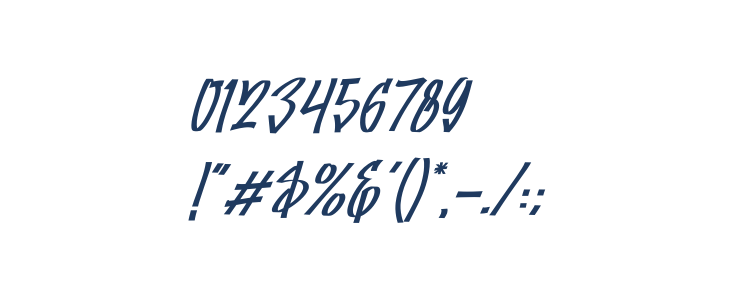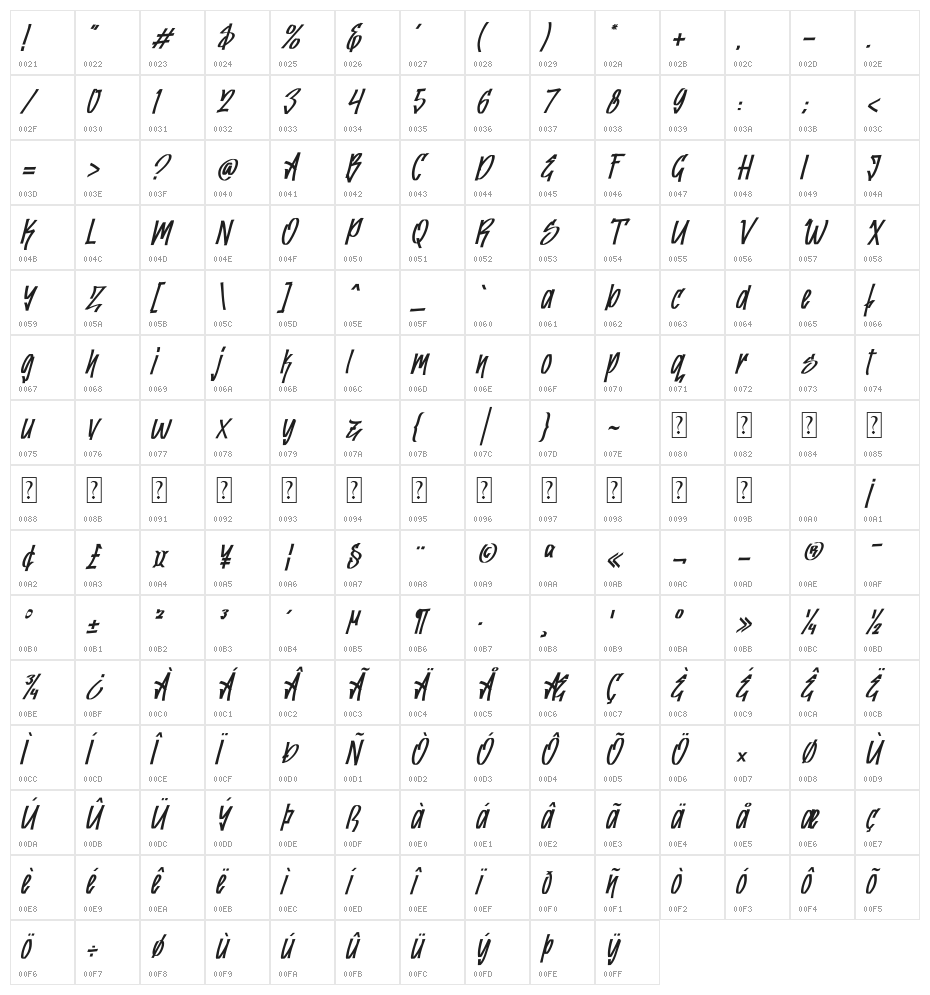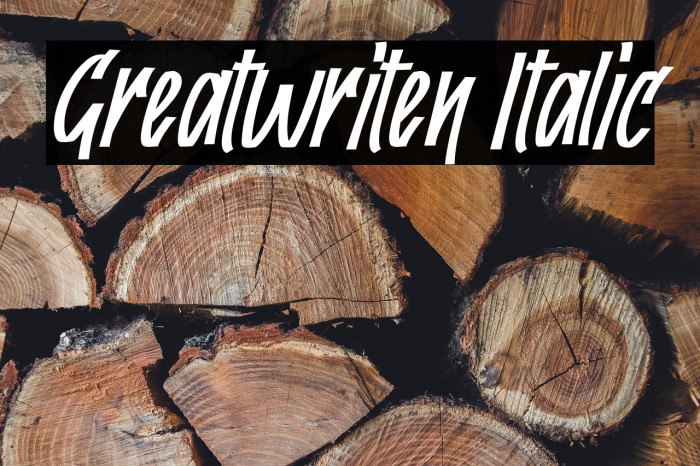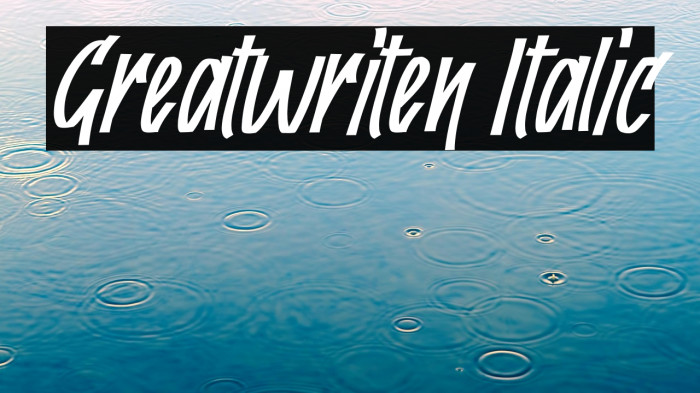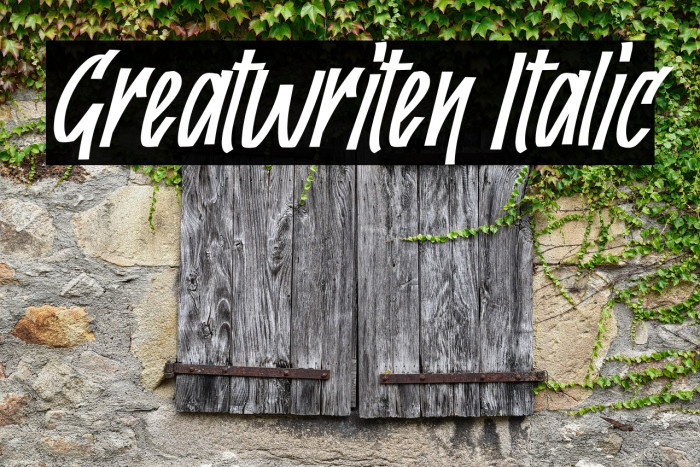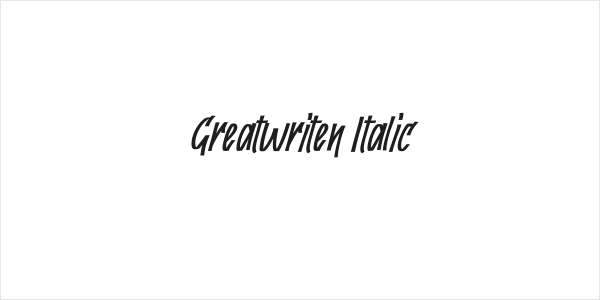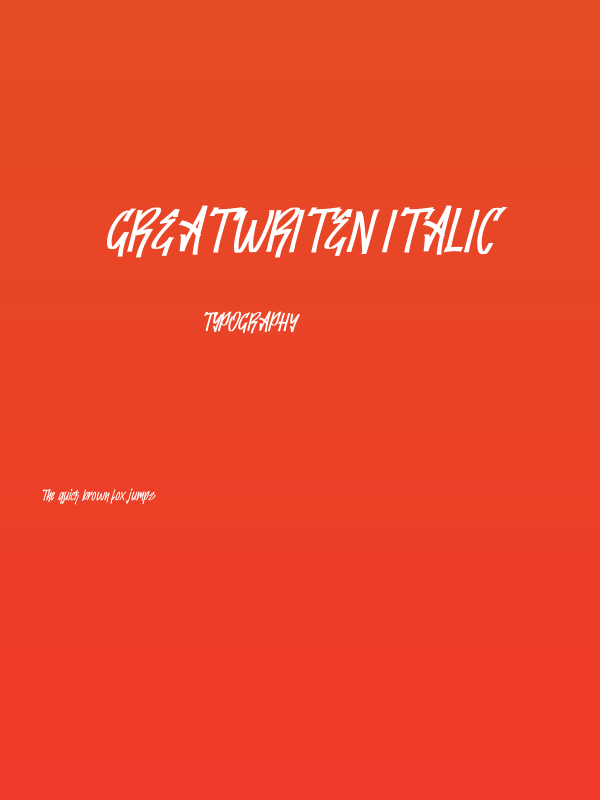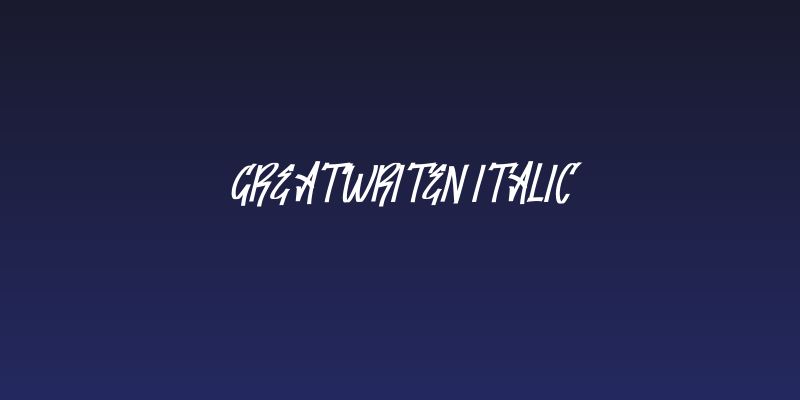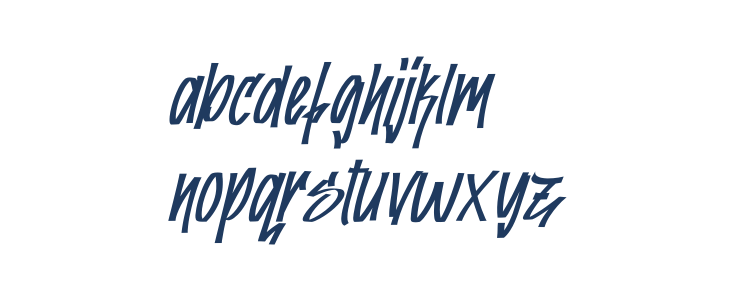
Greatwriten Italic Font
Greatwriten Italic Description
This font features a dynamic and energetic style with a pronounced italic slant, giving it a sense of movement and flair. The characters are bold and expressive, with sharp angles and a slightly condensed form that enhances its modern appeal. The uppercase letters are particularly striking, with a strong presence that commands attention. The lowercase letters maintain the same energetic flow, ensuring consistency throughout. Numbers and special characters are designed to match the overall style, making this font versatile for various applications. The high contrast in stroke thickness adds to its boldness, making it ideal for impactful designs.